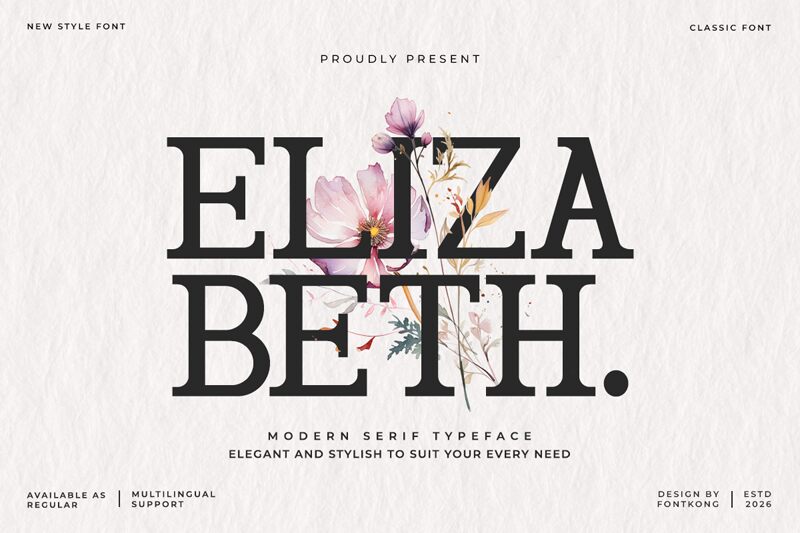
Elizabeth is an elegant serif type created by Kong Font. The font features a sophisticated letter style, a modern flair, and a refined touch. The timeless design of the font makes it highly legible and versatile across different uses. This classic typeface has a professional and formal look without losing its charming elegance.
An awesome choice for typography works, Elizabeth can be useful in headlines, body texts, logos, ad and magazine titles, and many others. Use it to create eye-catching designs for posters, book designs, branding, greeting cards, and invitations.